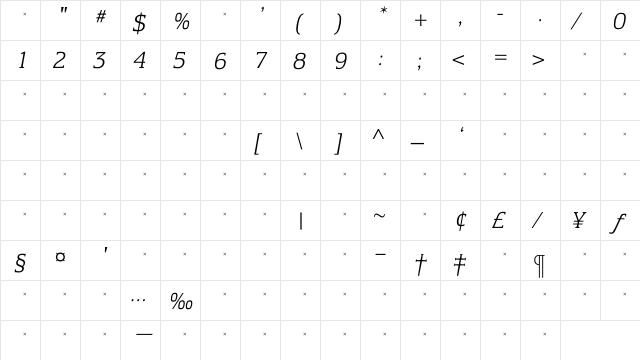
EquestrienneLightItalicTab Regular
Design Context for EquestrienneLightItalicTab Typeface
EquestrienneLightItalicTab is a composed and adaptable typeface that performs quietly and consistently across a wide range of design contexts. Its italic angle brings a sense of urgency and motion to the letterforms. The delicate stroke weight brings airiness and refinement to layouts.
Pro Tip: Use EquestrienneLightItalicTab for emphasis, pull quotes, and subheadings where its slanted energy can add rhythm to the layout.